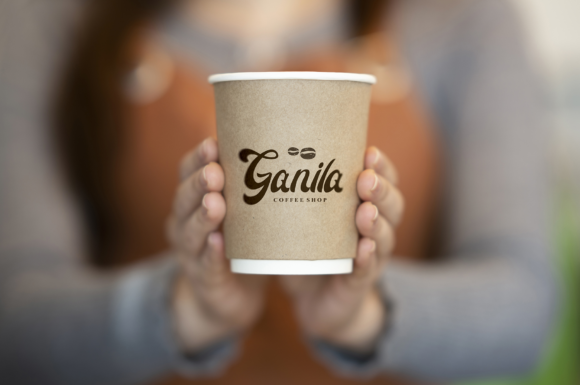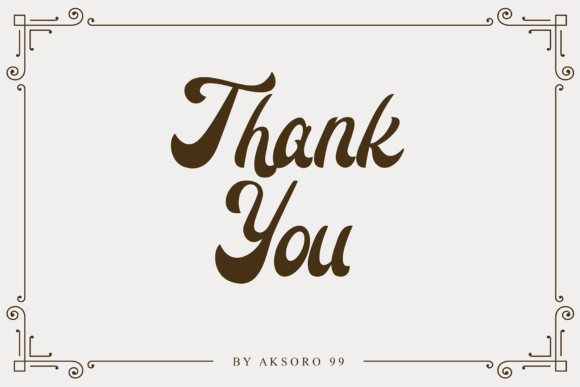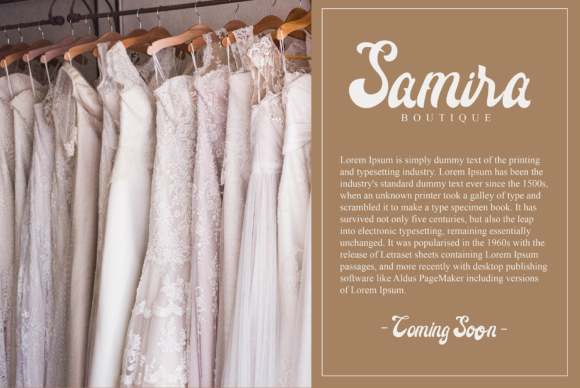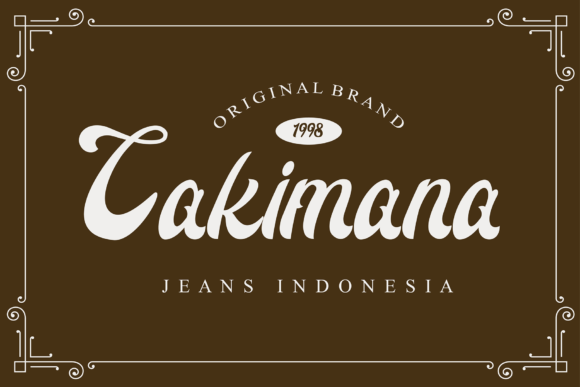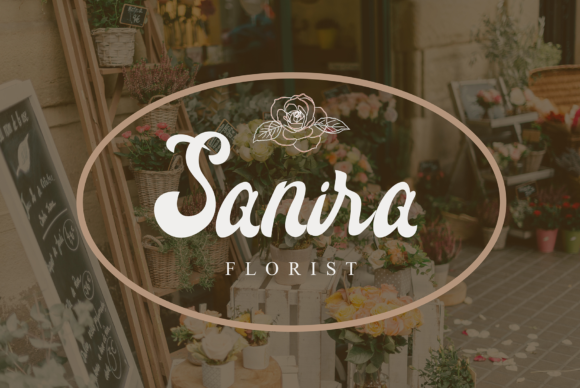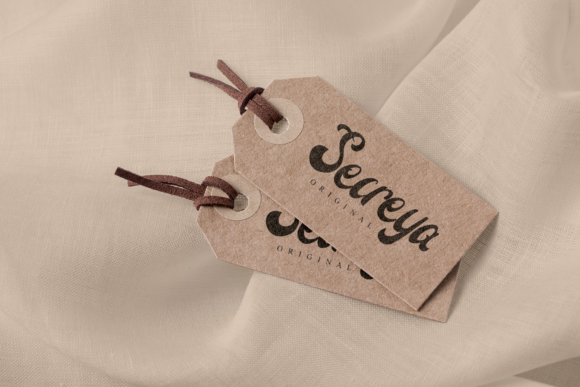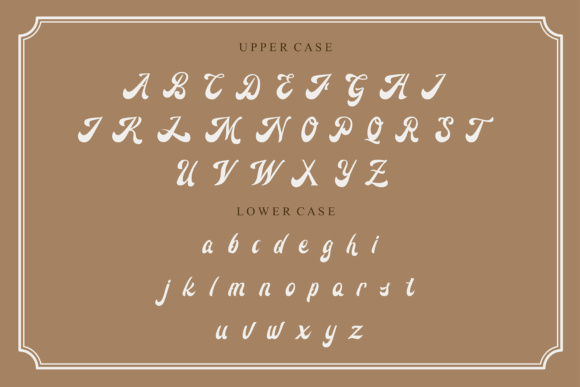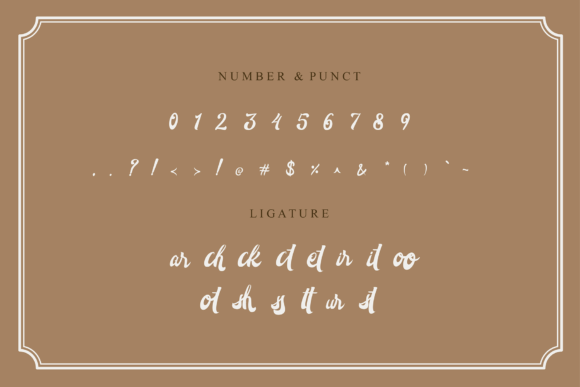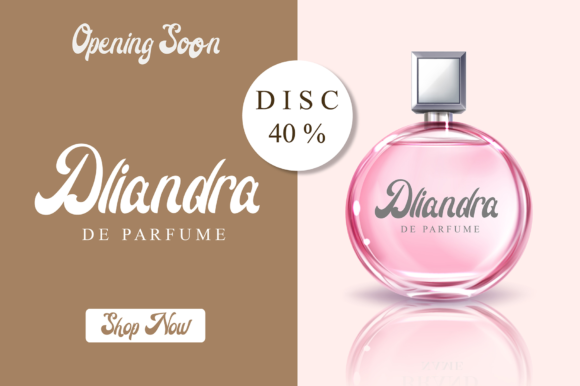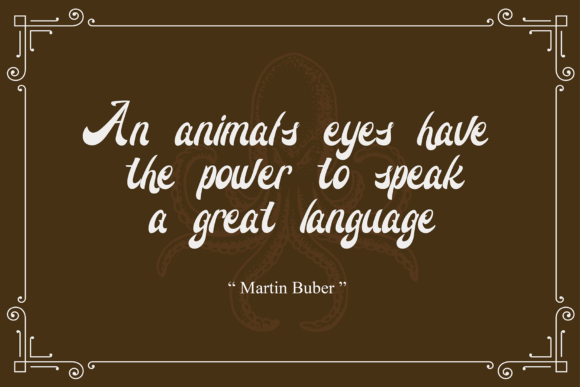
Suttan Telo Font
About Suttan Telo Font
Suttan Telo is an adorable quirky handwritten font. It will add an incredibly joyful touch to your designs.
Fall in love with its playful style and use it to create beautiful stationary art, eye-catching social media posts, and much more!